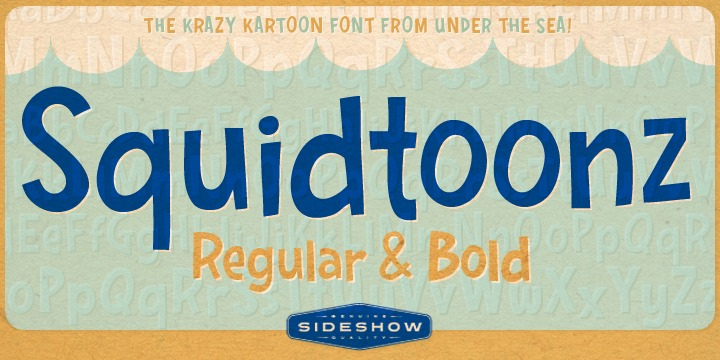
Squidtoonz Font
Squidtoonz Font is perfect for cartoon animation branding, children's entertainment logos, playful gaming interfaces, comic book lettering, toy packaging design, kids' app typography, animated series titles, and whimsical advertising campaigns. This delightful typeface works wonderfully in both digital applications and print media where animated charm and cartoon magic are essential design elements.
What makes Squidtoonz Font so exciting is its perfect capture of animated cartoon aesthetics through bouncy letterforms that seem to wiggle and squish with the fluid movement of underwater creatures and cartoon characters. The font features playful characters with tentacle-inspired curves, squishy proportions, and animated details that evoke the fun-loving spirit of ocean adventures and cartoon storytelling. Its animated personality and aquatic inspiration make it ideal for brands seeking to communicate pure fun, childhood wonder, and the boundless imagination of cartoon worlds while maintaining excellent readability for young audiences.
The Squidtoonz Font family includes multiple weight variations with different squish intensities, along with animated alternates and oceanic ornamental elements. Each style maintains the typeface's cartoon character while offering comprehensive character sets including playful numerals, animation-inspired punctuation marks, and special symbols designed to enhance children's communications and cartoon branding efforts across various animated contexts.
This extraordinary typeface represents the perfect marriage of cartoon animation and contemporary design functionality for children's entertainment and educational industries. Whether you're developing animated series identities, creating children's product packaging, or designing educational gaming materials, Squidtoonz Font Free Download provides the animated charm and versatility needed to captivate young audiences. The font's cartoon heritage makes it particularly effective for animation studios, children's brands, educational games, and businesses celebrating the joy and imagination of childhood entertainment.
The carefully crafted animated details and optimized cartoon performance in Squidtoonz Font ensure both playful authenticity and clear communication across all children's applications. Its bouncy presence makes it perfect for cartoon branding, children's marketing materials, and animated communications where its full squiddy character can create lasting smiles and connections with audiences who love the magical world of cartoons and underwater adventures.